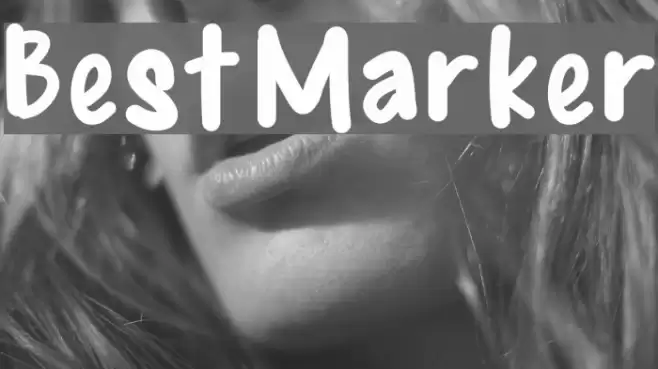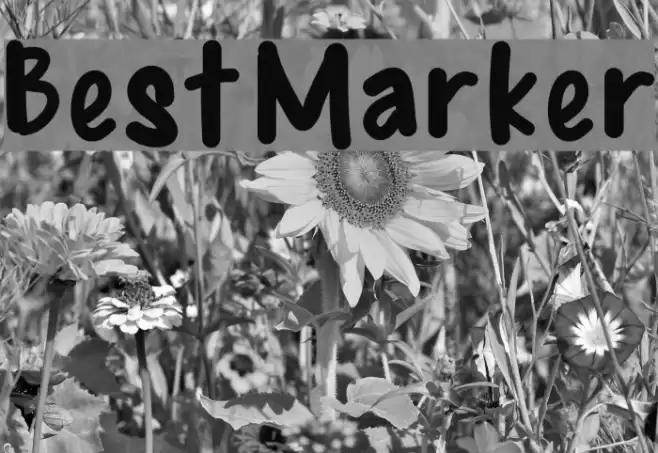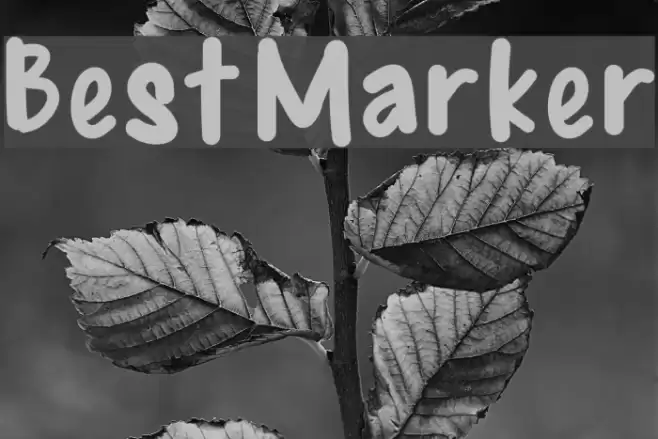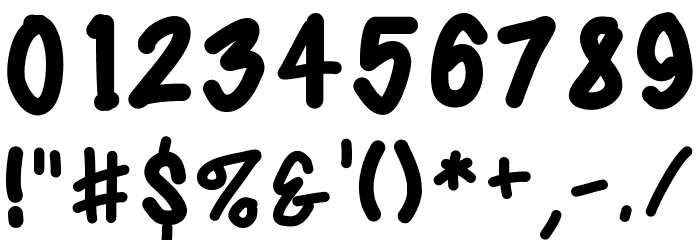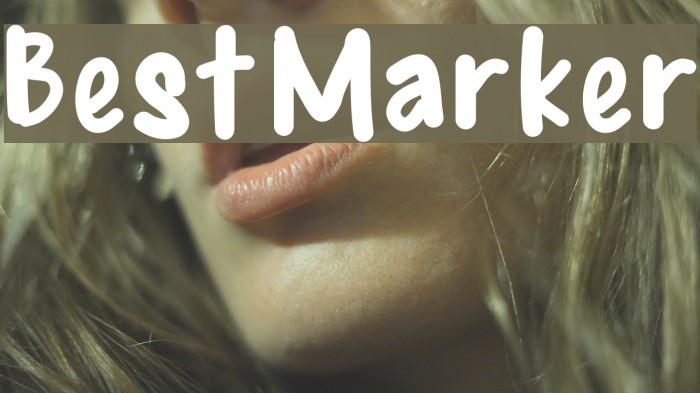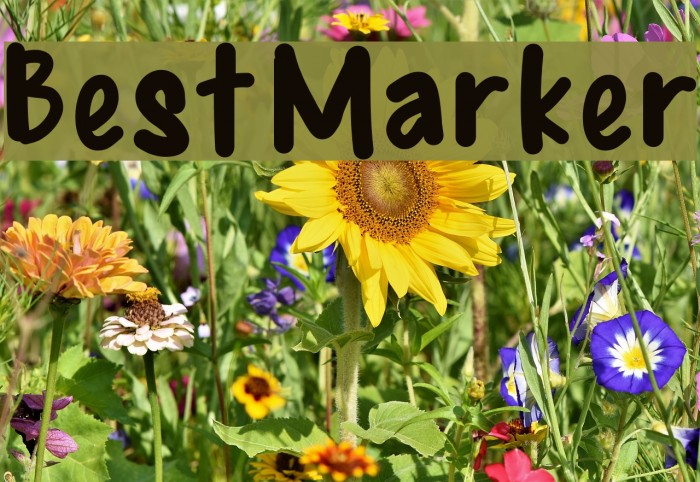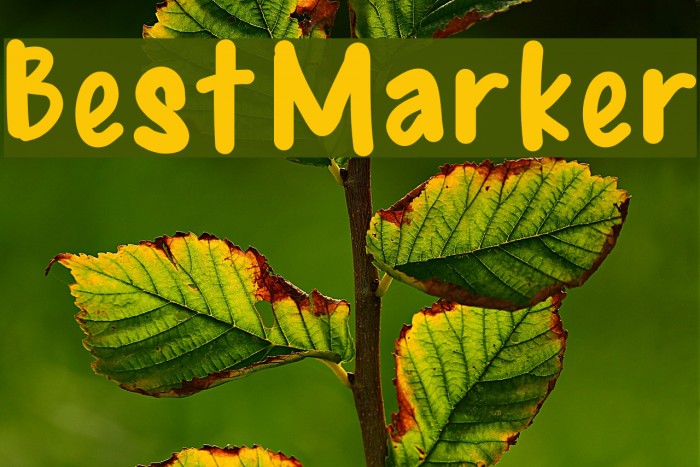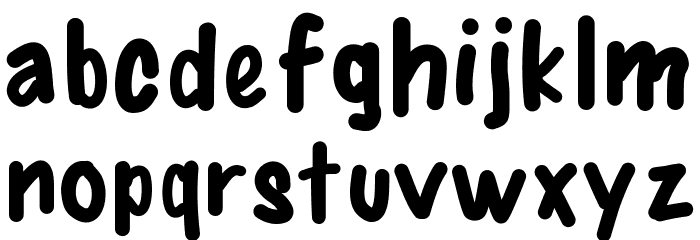
BestMarker
This font exudes a playful and casual vibe, reminiscent of handwritten marker strokes. The characters are bold and rounded, with a slightly uneven baseline that adds to its informal charm. The uppercase and lowercase letters maintain a consistent style, with smooth curves and a friendly appearance. The numbers and special characters follow the same design ethos, ensuring a cohesive look across all glyphs. This font is perfect for projects that require a personal touch, such as greeting cards, posters, or children's book covers. Its legibility and bold presence make it suitable for both digital and print media.
A playful, bold handwritten font with rounded, marker-like strokes.
- Proposed Projects: Ideal for greeting cards, posters, children's books, and informal branding.
- Overall Style: Casual